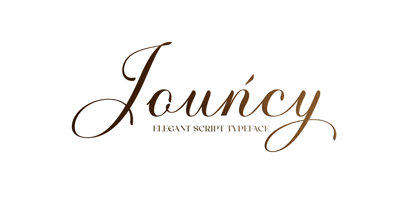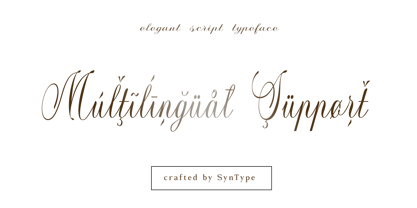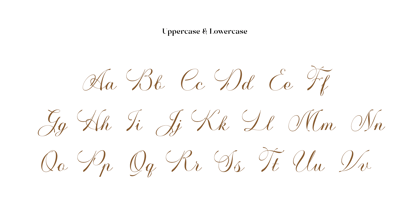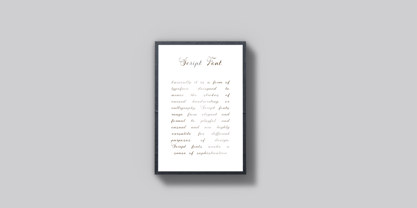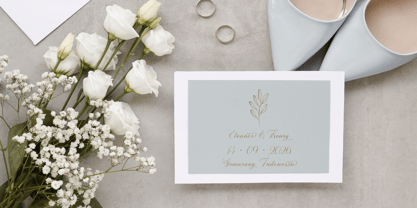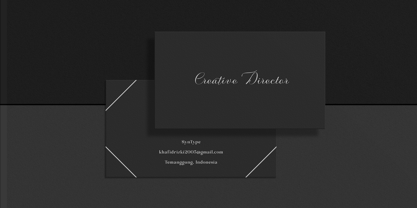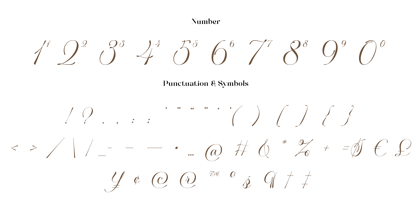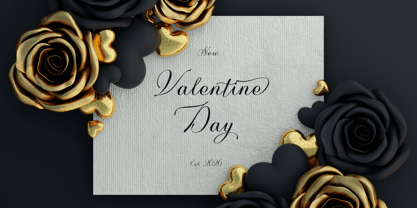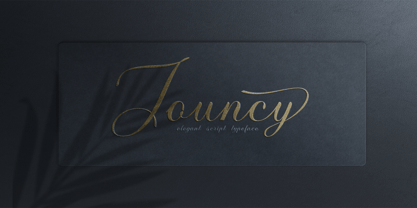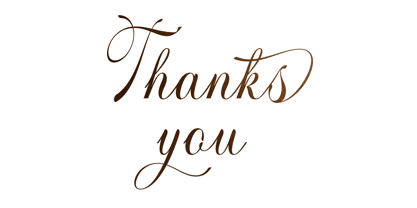
Jouncy
by SynType
The Jouncy Font Family was designed by M Khafid and published by SynType. Jouncy contains 1 styles. More about this family
Jouncy is a refined luxury script typeface designed to bring elegance, charm, and timeless sophistication into every design. Featuring graceful curves, flowing strokes, and beautifully crafted letterforms, Jouncy delivers a premium handwritten feel perfect for branding, wedding invitations, editorial layouts, cosmetics packaging, signature logos, and high-end visual identities.
Carefully built with multilingual support, stylish numerals, and elegant punctuation, this typeface offers both beauty and versatility. Its delicate details and luxurious rhythm make every word feel expressive, romantic, and effortlessly polished.
Crafted to leave a lasting impression, Jouncy transforms simple words into elegant statements.
Designers: M Khafid
Foundry: SynType